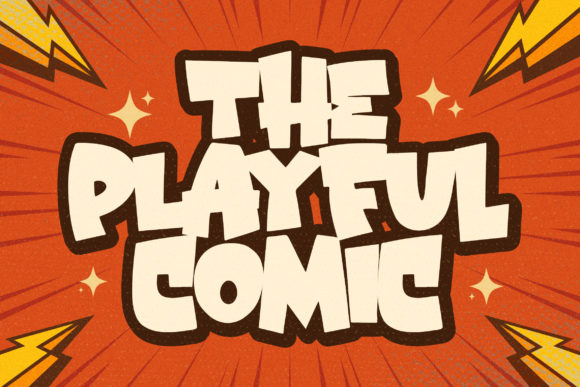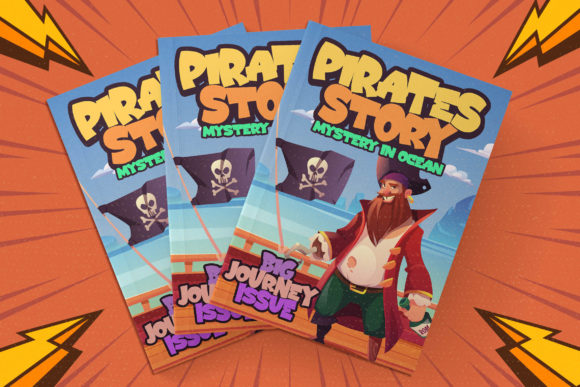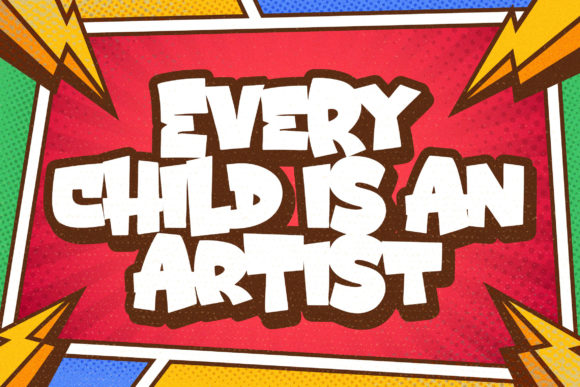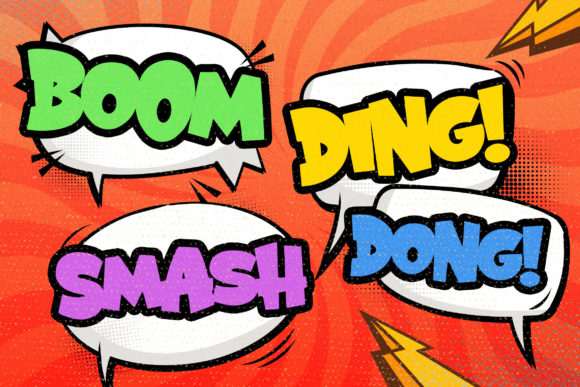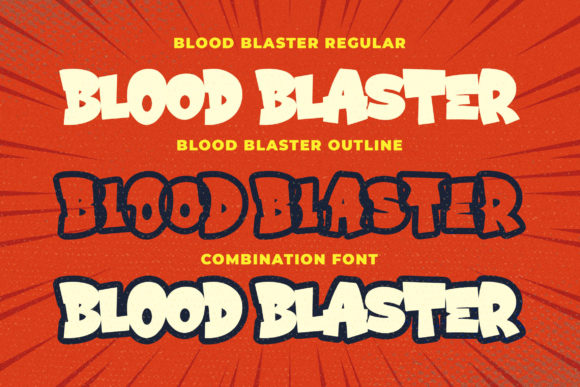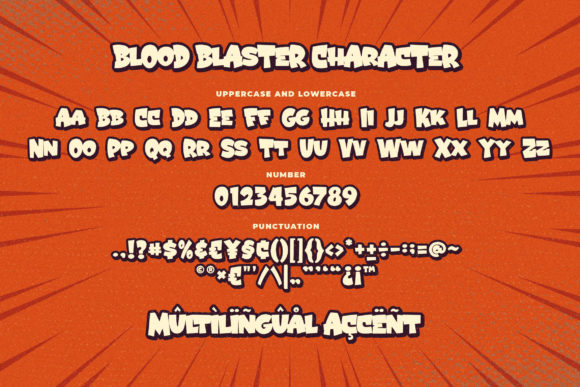
Blood Blaster Font: The Ultimate Choice for Fun and Playful Designs
Are you looking for a font that can add a touch of playfulness and authenticity to your designs? Look no further than the Blood Blaster font! This cool, bold, and thick lettered display font is perfect for any children activity or school project. In this article, we’ll explore the features and benefits of the Blood Blaster font, and why it’s a must-have for designers and crafters.
What is Blood Blaster Font?
Blood Blaster is a display font that is designed to make a statement. Its bold and thick letters are perfect for creating eye-catching headlines, titles, and captions. The font embodies playfulness and authenticity, making it ideal for designs that require a fun and youthful touch.
Key Features of Blood Blaster Font
- Bold and Thick Letters: The Blood Blaster font features bold and thick letters that are perfect for creating eye-catching designs.
- Playful and Authentic: The font embodies playfulness and authenticity, making it ideal for designs that require a fun and youthful touch.
- Perfect for Children Activities: The Blood Blaster font is perfect for children activities, such as worksheets, coloring books, and educational materials.
- Great for School Projects: The font is also great for school projects, such as posters, presentations, and reports.
Benefits of Using Blood Blaster Font
There are many benefits to using the Blood Blaster font in your designs. Here are a few:
- Adds a Touch of Playfulness: The Blood Blaster font adds a touch of playfulness and fun to your designs, making them more engaging and appealing.
- Creates Eye-Catching Designs: The bold and thick letters of the Blood Blaster font create eye-catching designs that grab attention.
- Perfect for Kids: The font is perfect for designs that require a youthful and playful touch, making it ideal for kids’ activities and school projects.
- Easy to Read: The Blood Blaster font is easy to read, even at small sizes, making it perfect for designs that require a clear and legible font.
How to Use Blood Blaster Font
Using the Blood Blaster font is easy! Here are a few tips:
- Use it for Headlines and Titles: The Blood Blaster font is perfect for headlines and titles, where you want to grab attention and create a bold statement.
- Pair it with Other Fonts: The Blood Blaster font pairs well with other fonts, such as sans-serif fonts, to create a fun and playful design.
- Use it for Kids’ Activities: The font is perfect for kids’ activities, such as worksheets, coloring books, and educational materials.
- Experiment with Different Colors: The Blood Blaster font looks great in different colors, so don’t be afraid to experiment and find the perfect color for your design.
In conclusion, the Blood Blaster font is a cool, bold, and thick lettered display font that embodies playfulness and authenticity. It’s perfect for any children activity or school project, and is a must-have for designers and crafters. With its bold and thick letters, playful and authentic feel, and ease of use, the Blood Blaster font is sure to add a touch of fun and excitement to your designs.
Here are a few tips for designers and crafters who want to get the most out of the Blood Blaster font:
- Experiment with Different Sizes: The Blood Blaster font looks great at different sizes, so don’t be afraid to experiment and find the perfect size for your design.
- Use it for Branding: The Blood Blaster font can be used for branding, such as logos and business cards, to add a touch of playfulness and fun.
- Pair it with Images: The Blood Blaster font pairs well with images, such as illustrations and graphics, to create a fun and playful design.